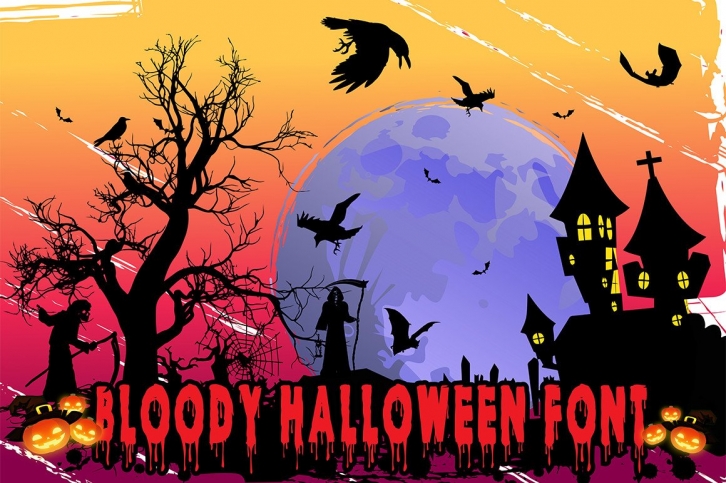
Bloody Halloween is a cool and creepy display font. This dark and spooky font is suitable for designs related to Halloween. The only limit is your imagination!